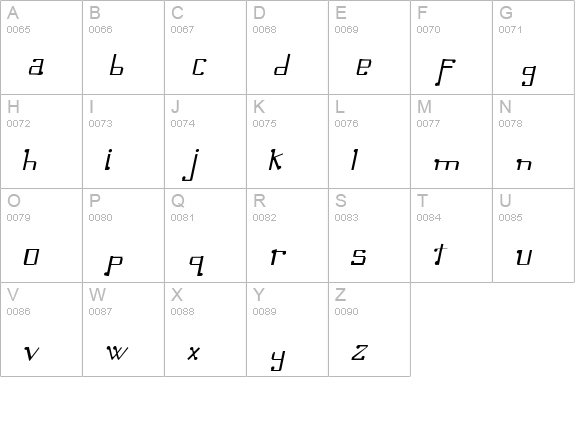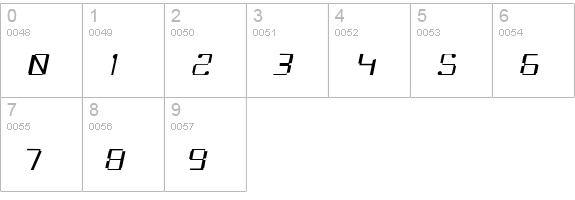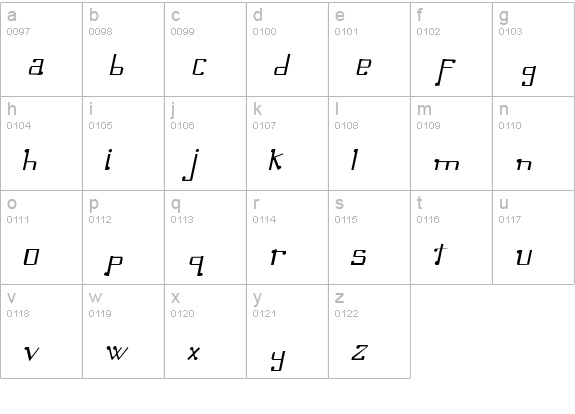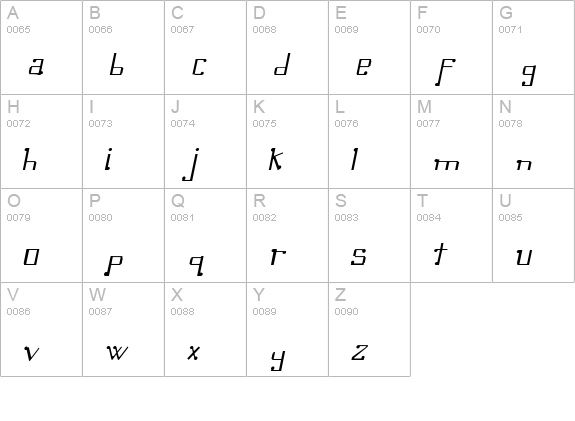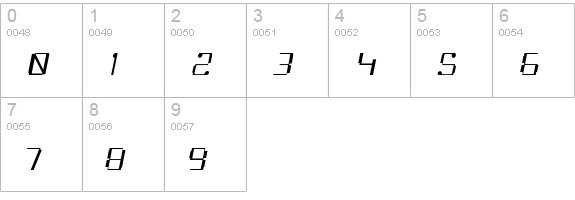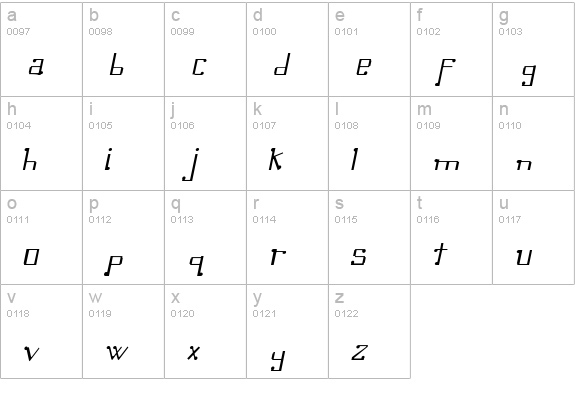
Omellons LightItalic Font Details
Omellons LightItalic font is a stunning and elegant typeface that exudes sophistication and style. With its delicate and graceful italic design, this font is perfect for adding a touch of class to any project. The smooth curves and refined letterforms of Omellons LightItalic make it a versatile choice for a wide range of design applications. What makes Omellons LightItalic even more appealing is that it is available for free download at FontsMarket.com. This means that you can easily access and use this beautiful font in your projects without any cost. Whether you're working on a branding project, a website design, or any other creative endeavor, Omellons LightItalic is sure to elevate your work with its timeless charm and elegance. Don't miss out on the opportunity to enhance your designs with the exquisite Omellons LightItalic font, now freely available for download at FontsMarket.com.